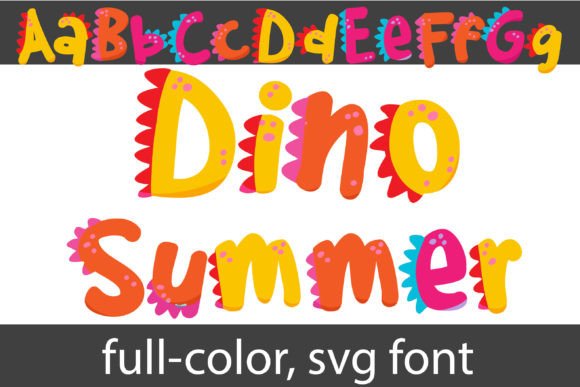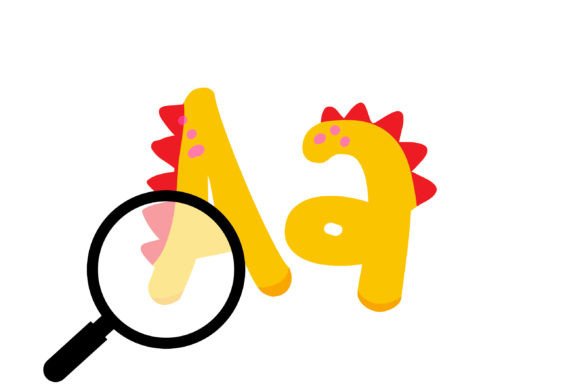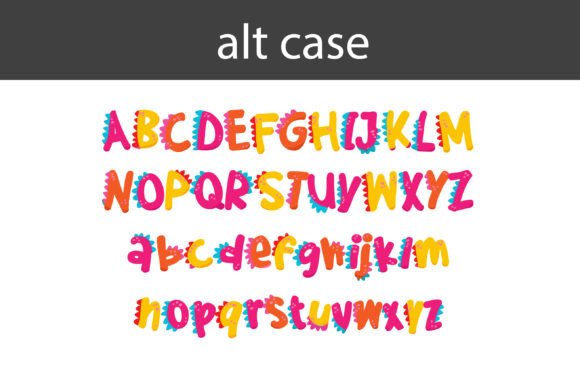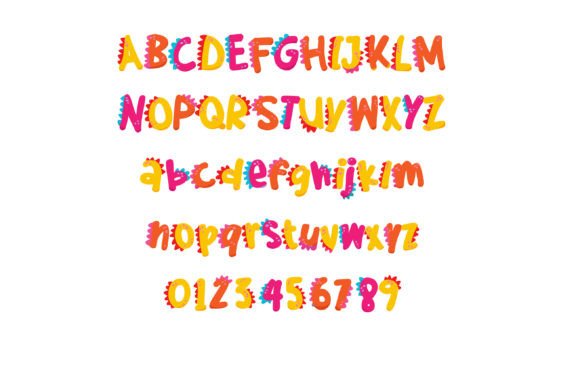
Dino Summer Font
About the Dino Summer Font
Meet Dino Summer Font, a stunning font that brings a touch of elegance and professionalism to any design. This full-color font features a creative, crafty font with a dino-feel in a hot, summer color palette. There is an alt case w/ additional colors you can access through your system or Silhouette’s glyph map. This font works best for titles, displays, posters and more. Please note color fonts will show as black in non compatible programs. This font type is compatible with Silhouette Studio.